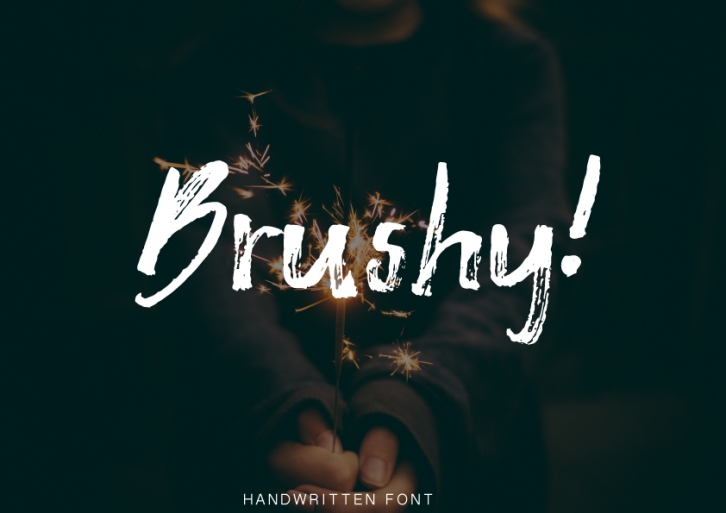
Brushy! is a trendy and unique font with an authentic style. It was designed by Paula Type and it's a great choice for creative people who need such a font. It was released on June 30, 2017 and the file size is 21.52 MB. Brushy! will add an organic vibe to any design idea!